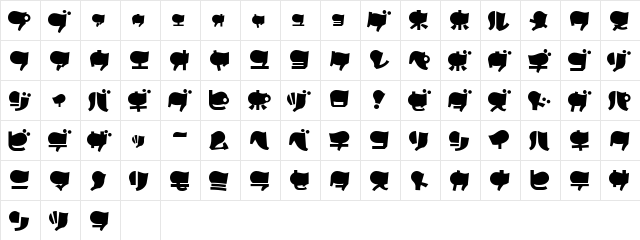
OrangeAde Regular
Design Context for OrangeAde Typeface
OrangeAde is a composed and adaptable typeface that performs quietly and consistently across a wide range of design contexts.